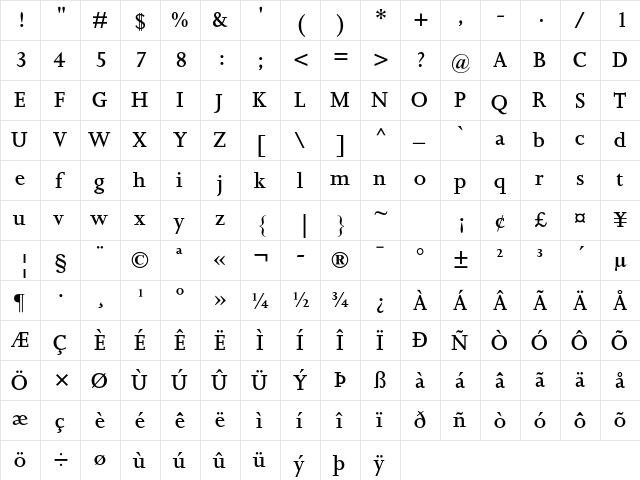
Joanna MT Pro SemiBold Font Preview
Joanna MT Pro SemiBold
| Designer | Eric Gill |
Design Context for Joanna MT Pro Typeface
Joanna MT Pro takes a measured approach to typography — its balanced proportions and neutral character make it a reliable workhorse for both digital and print work. Its bold stroke weight gives it real presence on the page.